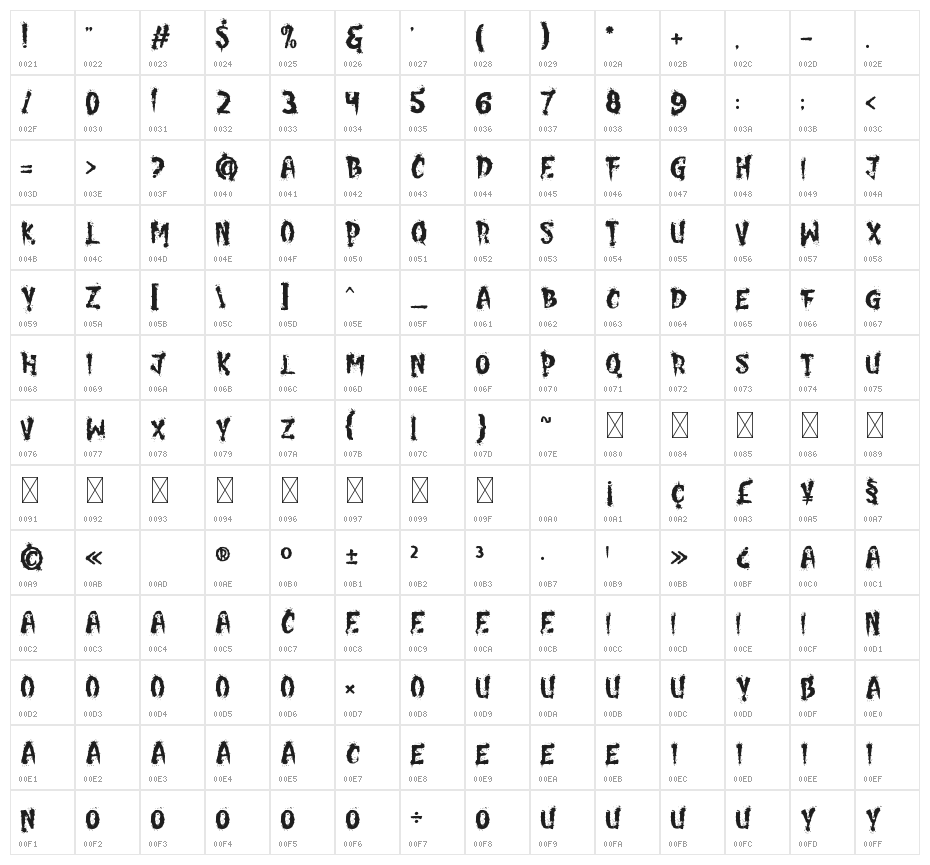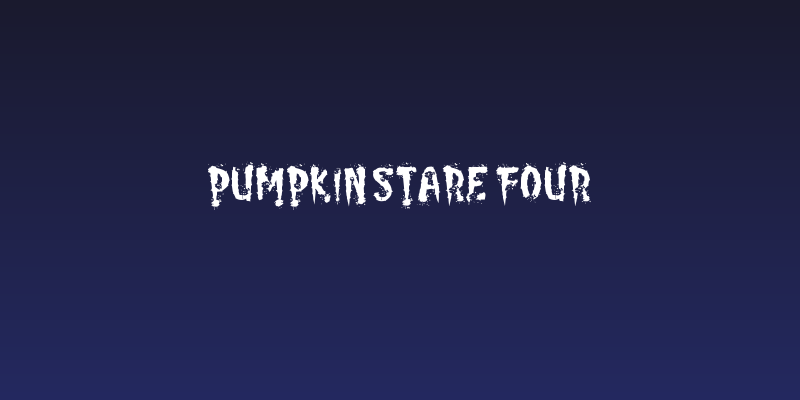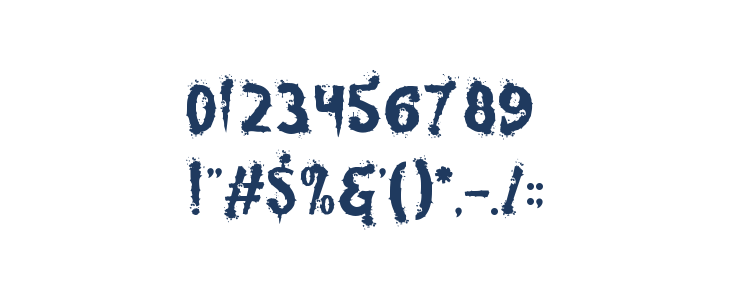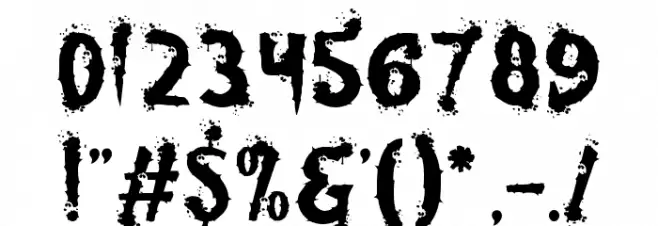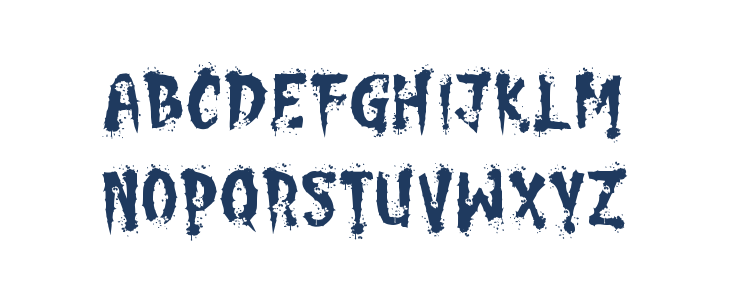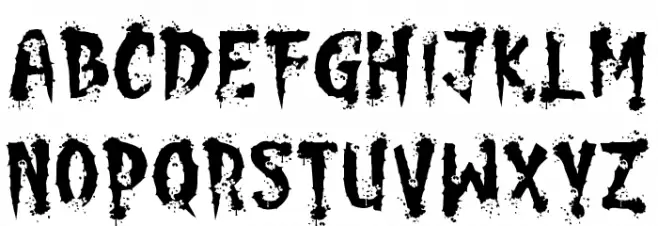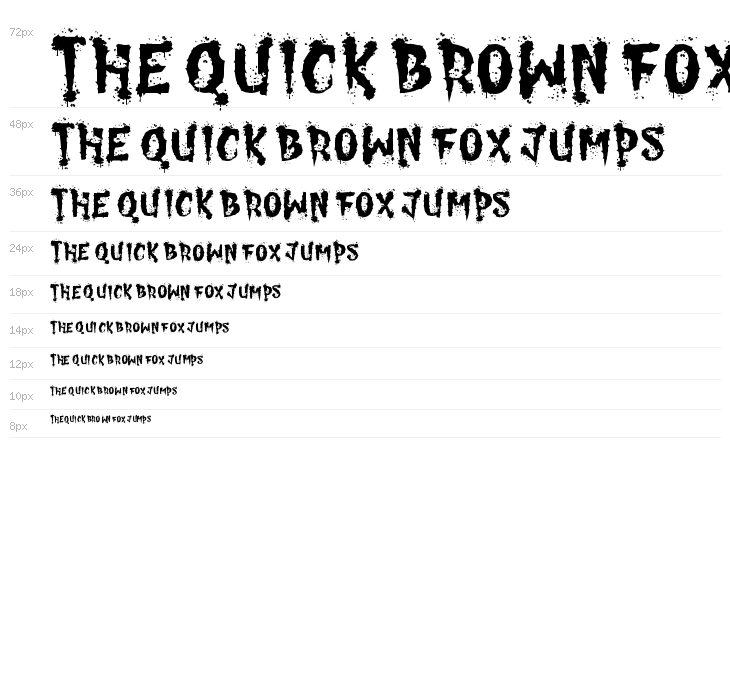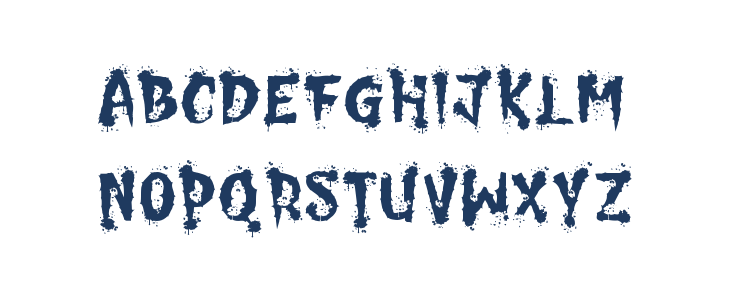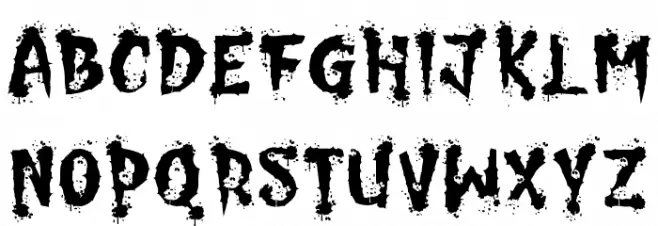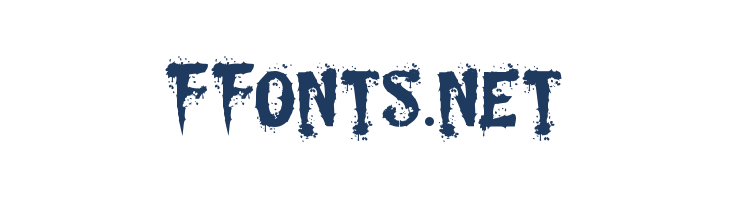
Pumpkin Stare Four Font
Pumpkin Stare Four Description
A bold, decorative display font with jagged, irregular edges and splatter effects, evoking a spooky or horror-themed aesthetic. The characters are uppercase with a distressed, hand-drawn appearance, and the overall style is highly expressive and dramatic.
| Overall Style | Decorative, Horror, Spooky |
| Use Case | Headlines, Posters, Logos, Event Flyers |
| Proposed Projects | Halloween posters, horror movie titles, haunted house flyers, themed party invitations, graphic novels. |